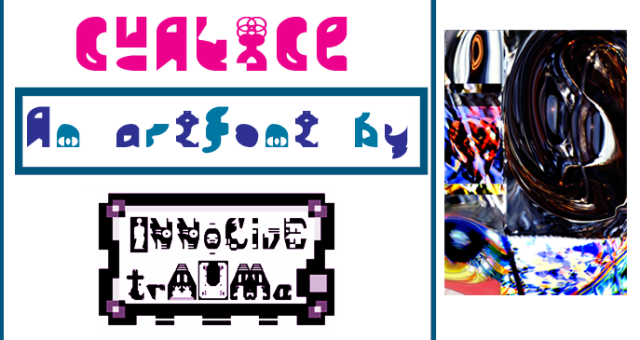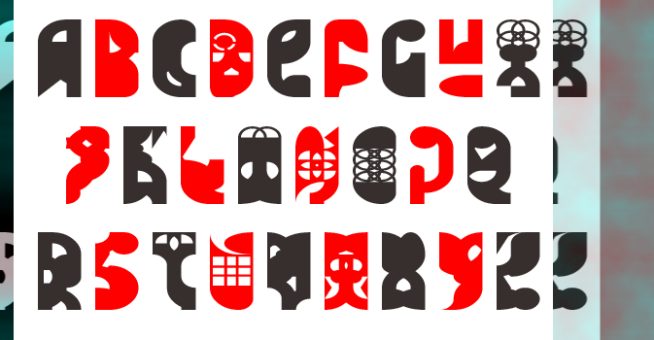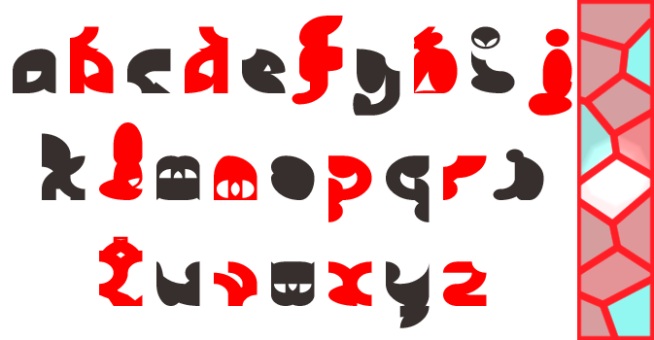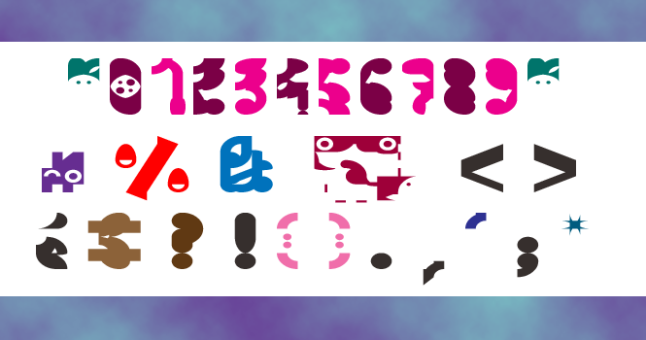
trAUMa 50 / Chalice
"Chalice", like all the "trAUMa" series, works at the frontier between Art & Type Design, Figuration & Abstraction, each font is a comprehensive world in which every glyph is a "living" entity. But put together they can produce your messages in the most accurate way.